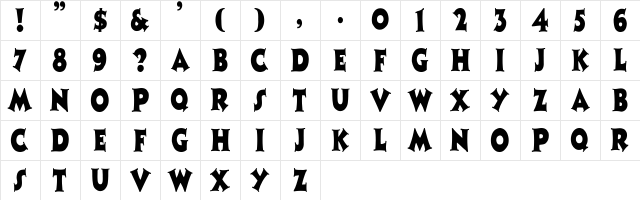
Zaleski Cn Regular
Design Context for Zaleski Cn Typeface
Zaleski Cn is a composed and adaptable typeface that performs quietly and consistently across a wide range of design contexts.